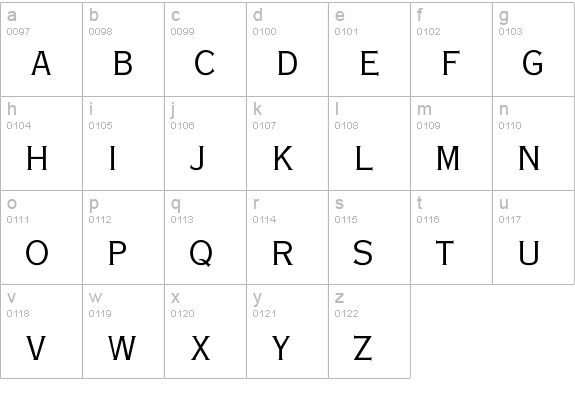
Copperplate Gothic Twenty-Nine AB Font Details
Copperplate Gothic Twenty-Nine AB is a timeless and elegant font that exudes sophistication and professionalism. With its clean lines and classic design, this font is perfect for creating refined and polished documents, invitations, and more. The bold and commanding presence of Copperplate Gothic Twenty-Nine AB makes it a standout choice for any project that requires a touch of class. The best part is that Copperplate Gothic Twenty-Nine AB is available for free download at FontsMarket.com. This means you can easily access this premium font without any cost, allowing you to enhance your designs with a high-quality typeface without breaking the bank. Don't miss out on this opportunity to elevate your projects with the beauty and elegance of Copperplate Gothic Twenty-Nine AB - download it for free today!